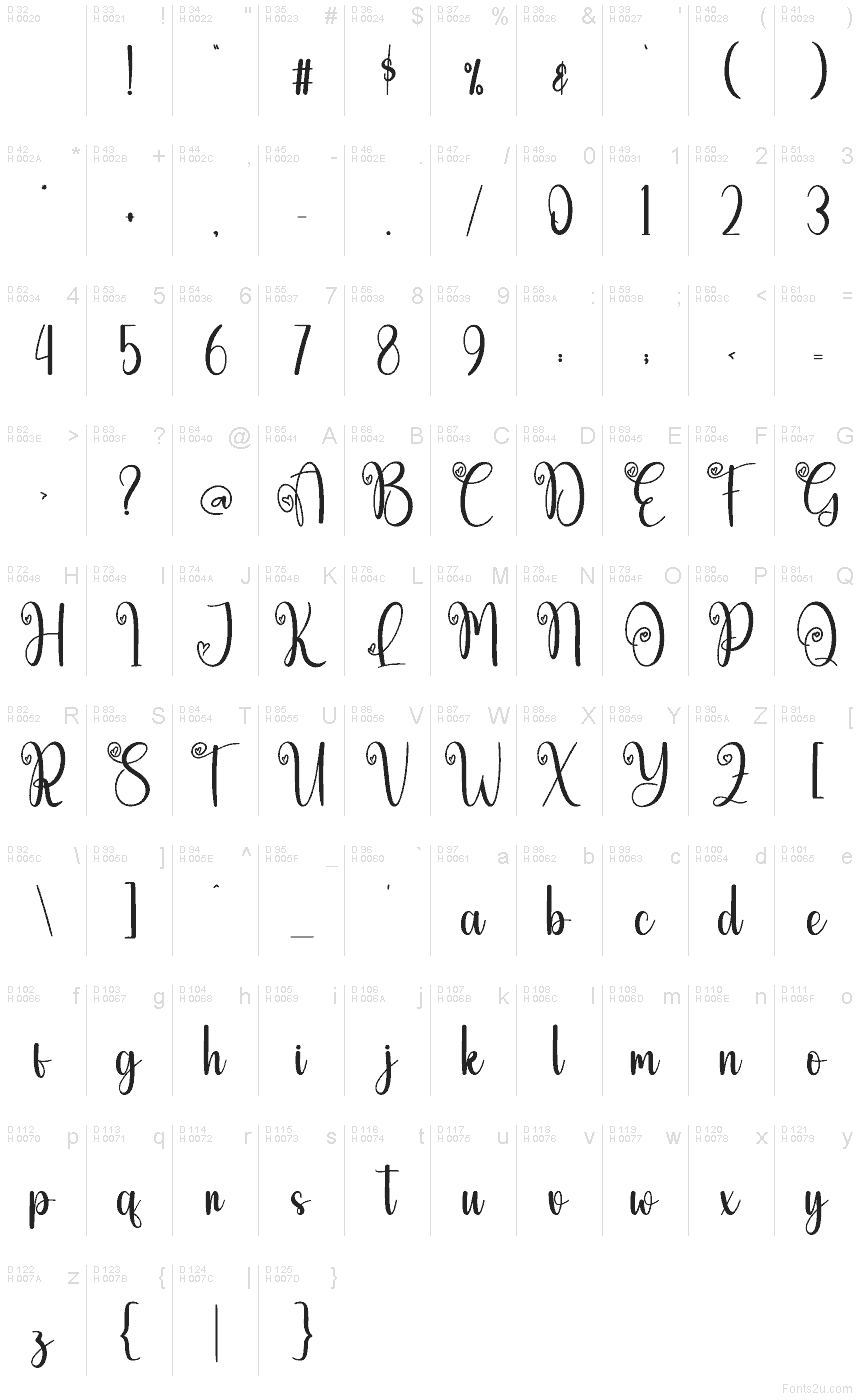
Darling Girl
Darling Girl font by Scratchones is a free calligraphy script font with ornamental flourishes and romantic undertones. Elegant yet expressive, it has a smooth flow and whimsical nature accentuated by its decorative embellishments. A perfect typeface to express sentiments of love, tenderness, and eternal beauty.
Darling Girl would be ideal for Valentine’s Day designs, invitations, wedding stationery (invitations, RSVP cards), romantic movie posters/videos openings or ends/openers; quotes about life/love/happiness/beauty etc., event tickets decoration like pink sales flyers & vouchers among many other applications the designer can create with this inspiring typeface!